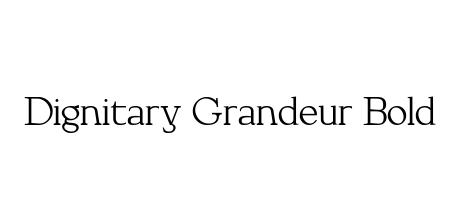
Dignitary Grandeur Bold
Dignitary Grandeur Bold: A font exuding regal confidence. Its weighty strokes command attention, yet possess an elegant refinement. Ideal for headlines demanding gravitas, it whispers authority with each meticulously crafted letterform, promising impact and sophistication.